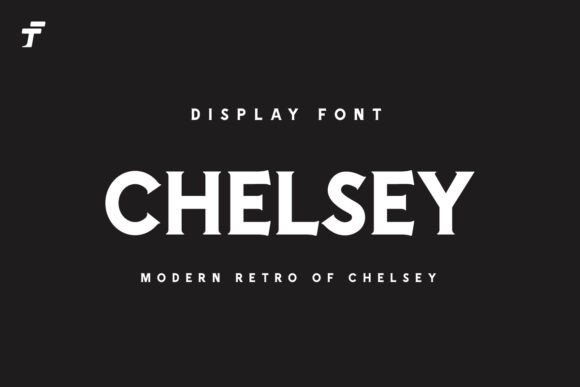
Step into the world of Chelsey Font, a display font that's as captivating as a subway art masterpiece. Its fresh and neat design is a breath of fresh air, inviting you to create logos, branding, and quotes that leap off the page.
With Chelsey Font, every letter is a work of art, meticulously crafted to bring your designs to life. Its unique and beautiful touch adds a layer of elegance and sophistication that will leave your audience in awe.
Imagine your logo, standing tall and proud, adorned with the Chelsey Font. It commands attention, leaving an unforgettable impression on anyone who sees it. Your branding will exude professionalism and creativity, attracting customers like moths to a flame.
And when you use Chelsey Font to create quotes, they become more than just words – they become powerful statements that resonate with your audience. Its captivating style adds emphasis to every message, ensuring that your words hit home and leave a lasting impact.
Chelsey Font is not just a font; it's an experience. It's a chance to unleash your creativity and create designs that are both stunning and meaningful. Don't settle for ordinary fonts – embrace the extraordinary with Chelsey Font.
So, why wait? Dive into the world of Chelsey Font today and let your designs shine brighter than ever before. Experience the beauty, the elegance, and the sheer brilliance of this display font that's sure to captivate hearts and minds.